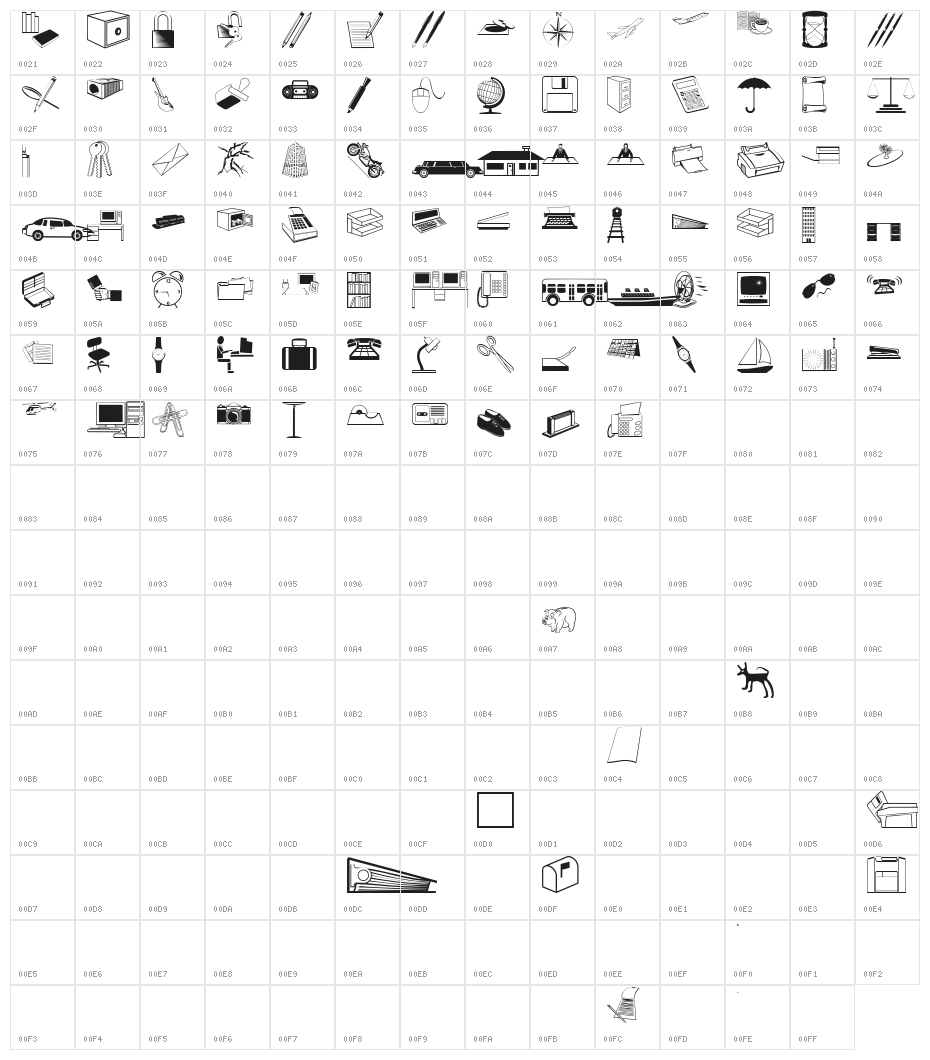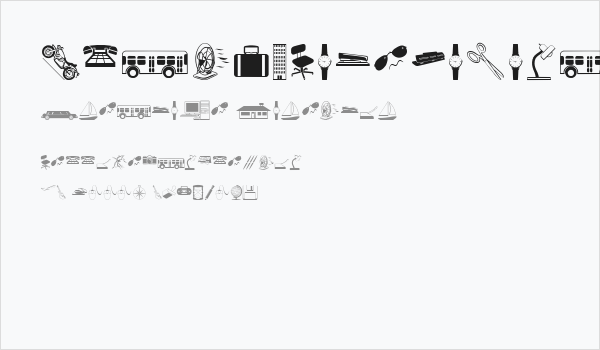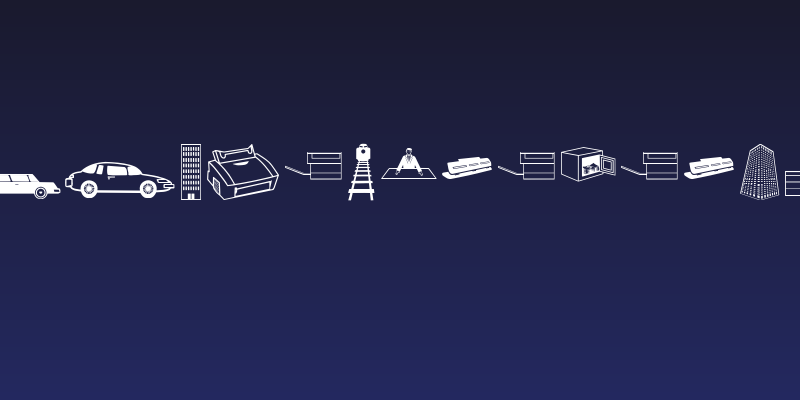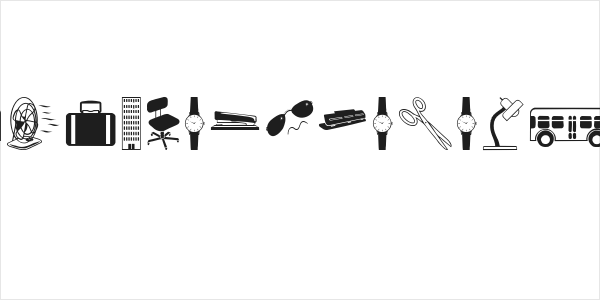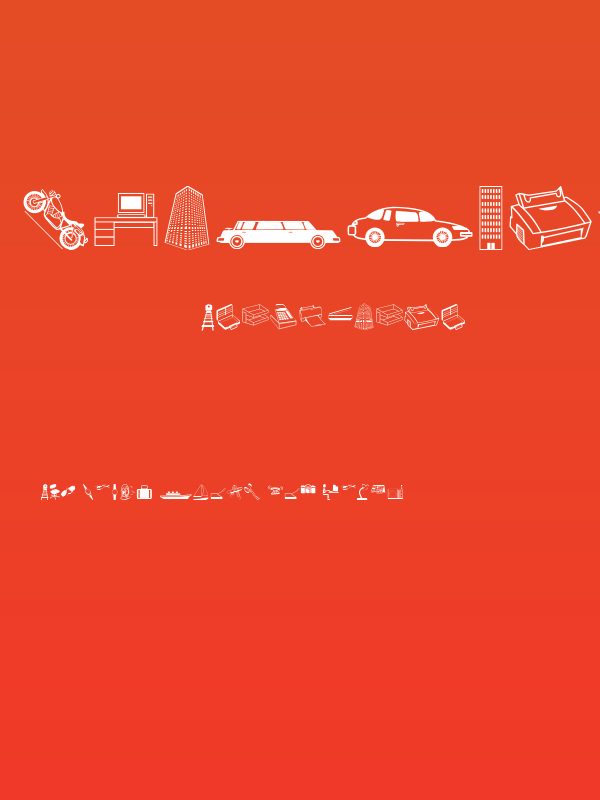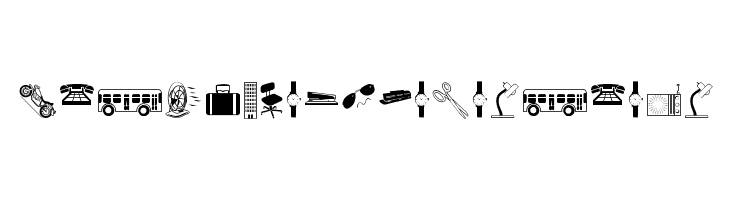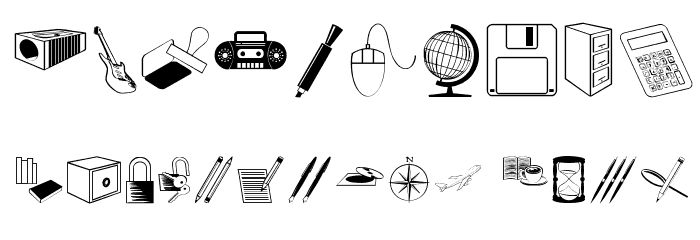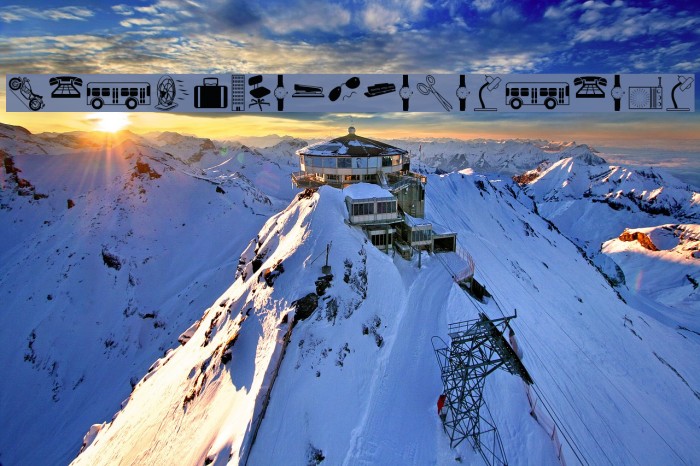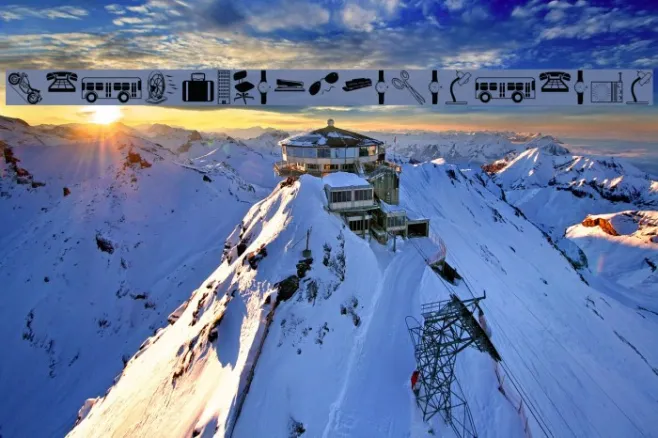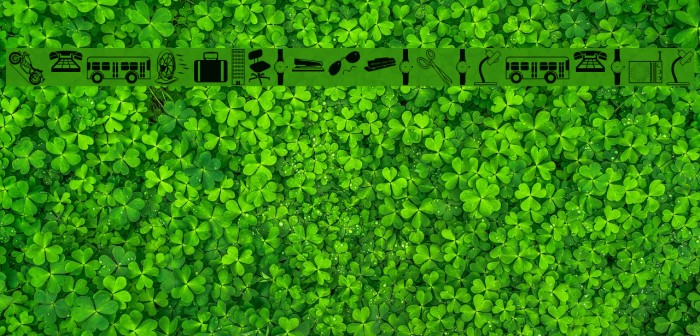
BlackWhiteMinimalism Font
BlackWhiteMinimalism Description
A pictogram-style font composed of minimalistic black and white illustrations representing various objects, vehicles, office supplies, and technology, each glyph being a unique icon rather than a traditional letterform.
| Overall Style | Minimalist, Modern, Iconographic |
| Use Case | Icons, Infographics, Visual communication, Decorative headings |
| Proposed Projects | Infographics, educational materials, signage, user interfaces, visual aids, and creative presentations. |